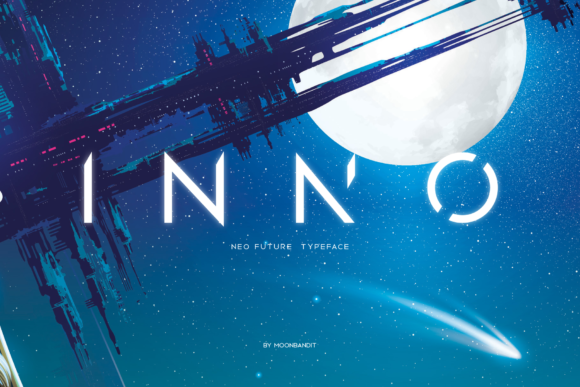
The Creative Spark: Unlocking the Potential of Inno Font
Have you ever found yourself stuck in a design rut, desperate for the perfect font to bring your creative vision to life? We’ve all been there – pouring over fonts, searching for that elusive spark that will elevate our work from good to great. And then, like a ray of sunshine, you stumble upon Inno Font – a game-changing sans serif font that’s about to revolutionize the way you design.
This elegant, futuristic font is more than just a pretty face; it’s a powerful tool designed to help you turn your ideas into stunning works of art. Whether you’re a seasoned designer or a DIY enthusiast, Inno Font is the perfect companion for bringing your creative projects to life. With its versatility and sophistication, Inno Font is sure to become your go-to font for all your design needs.
- Font Family: Inno Font is a modern sans-serif font family with a wide range of weights and styles, including light, regular, bold, and italic.
- Character Count: Inno Font contains over 800 characters, including Latin, Cyrillic, and Greek alphabets, as well as punctuation and special characters.
- Unique Characteristics: Inno Font features a clean and minimalist design, with a focus on legibility and readability. Its unique characteristics include a subtle x-height and a carefully crafted letter spacing system.
Inno Font Review
Overall, I was quite impressed with the “Inno Font” on my latest design project. Here are a few things that worked well:
- ✨ Clean and modern aesthetic: The font has a sleek and contemporary look that instantly elevates any design.
- ✨ High legibility: The letters are well-spaced and easy to read, making it perfect for both digital and print materials.
- ✨ Versatility: Inno Font comes in a range of weights and styles, giving designers ample options to experiment with different looks and moods.
However, there are a few limitations I’d like to mention:
- ⚠️ Limited language support: I found that the font only supports a limited number of languages, which could be a problem for global design projects.
- ⚠️ Limited customization options: While the font has multiple weights and styles, it’s not as customizable as some other fonts I’ve worked with.
Overall, I’d give “Inno Font” a solid 4 out of 5 stars. It’s a great choice for modern design projects that require a clean and legible font. However, designers working on international projects or seeking more customization options may want to explore other options.
Inno Font is ideal for:
1. Branding and logos
2. Business presentations
3. Marketing materials
4. Digital signage